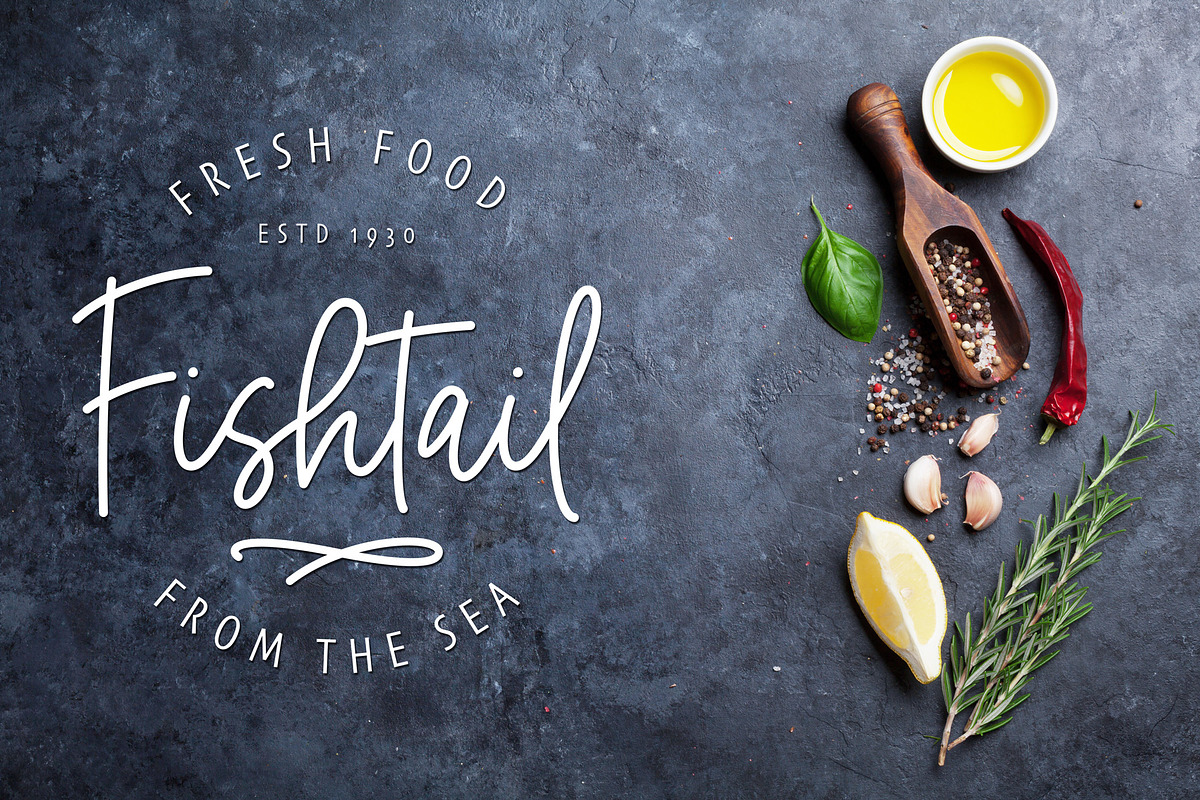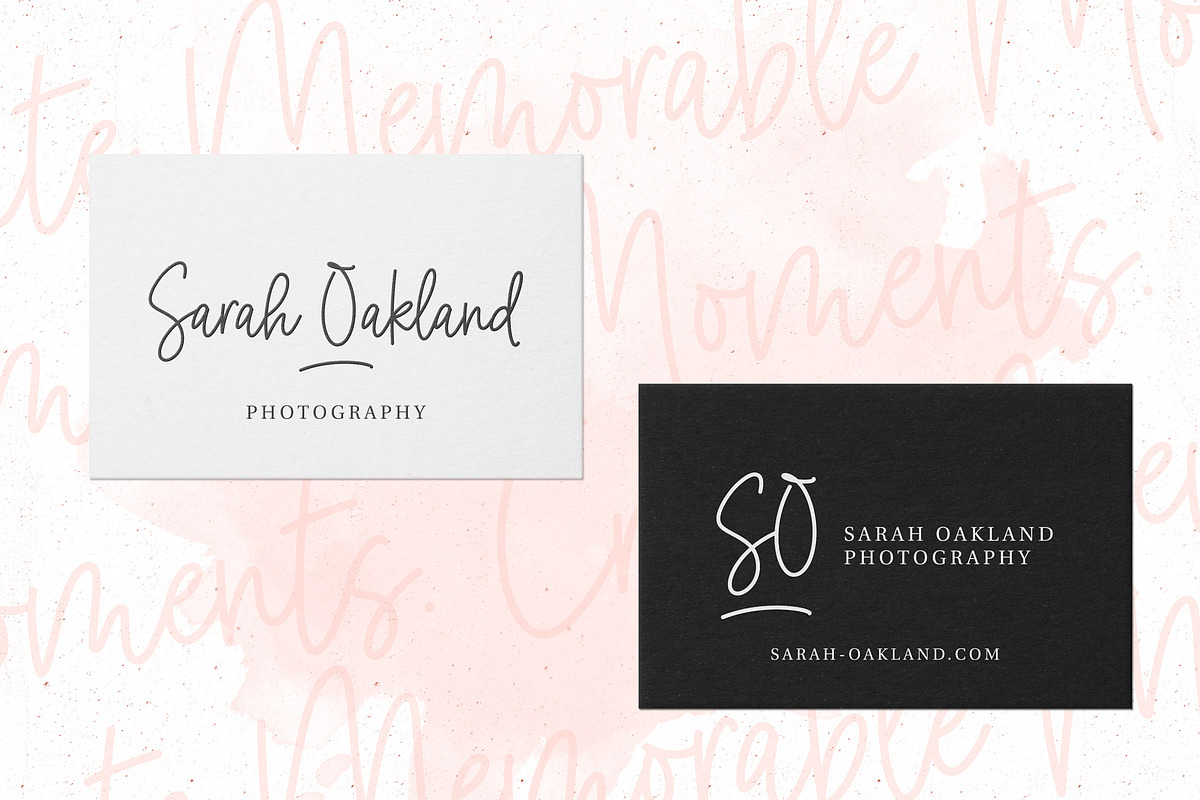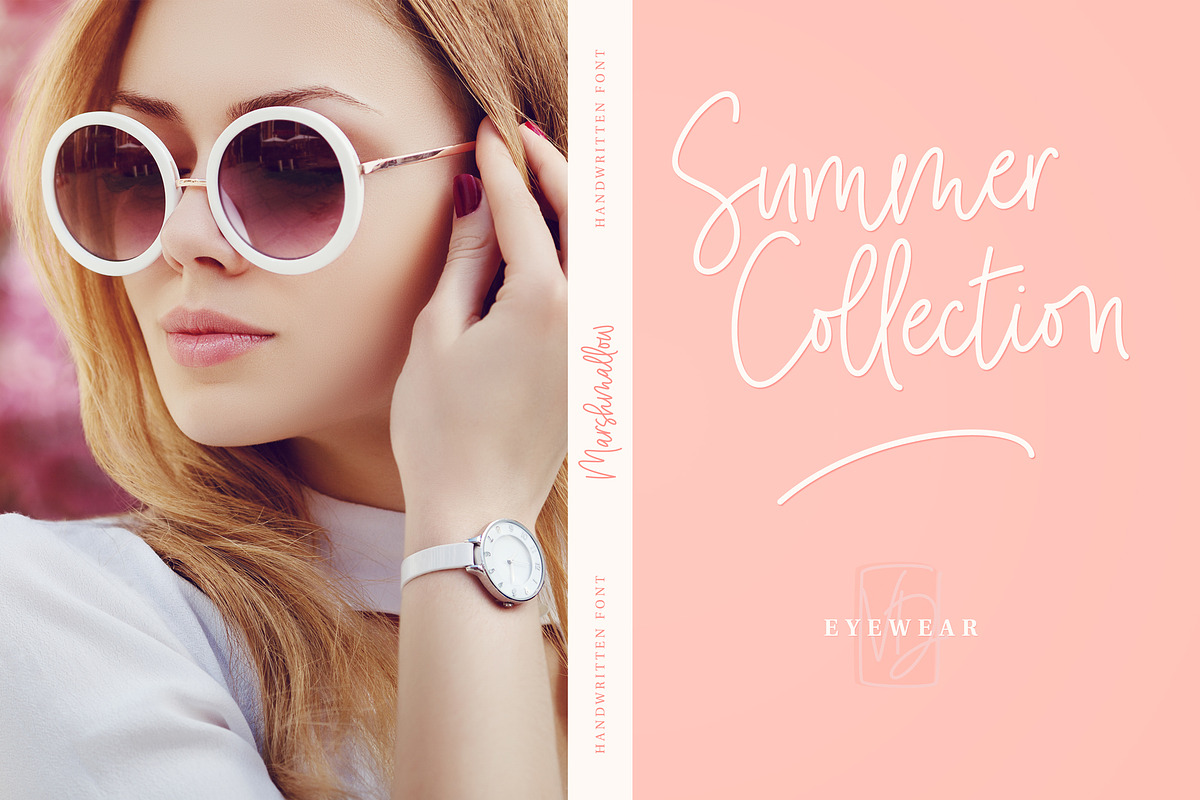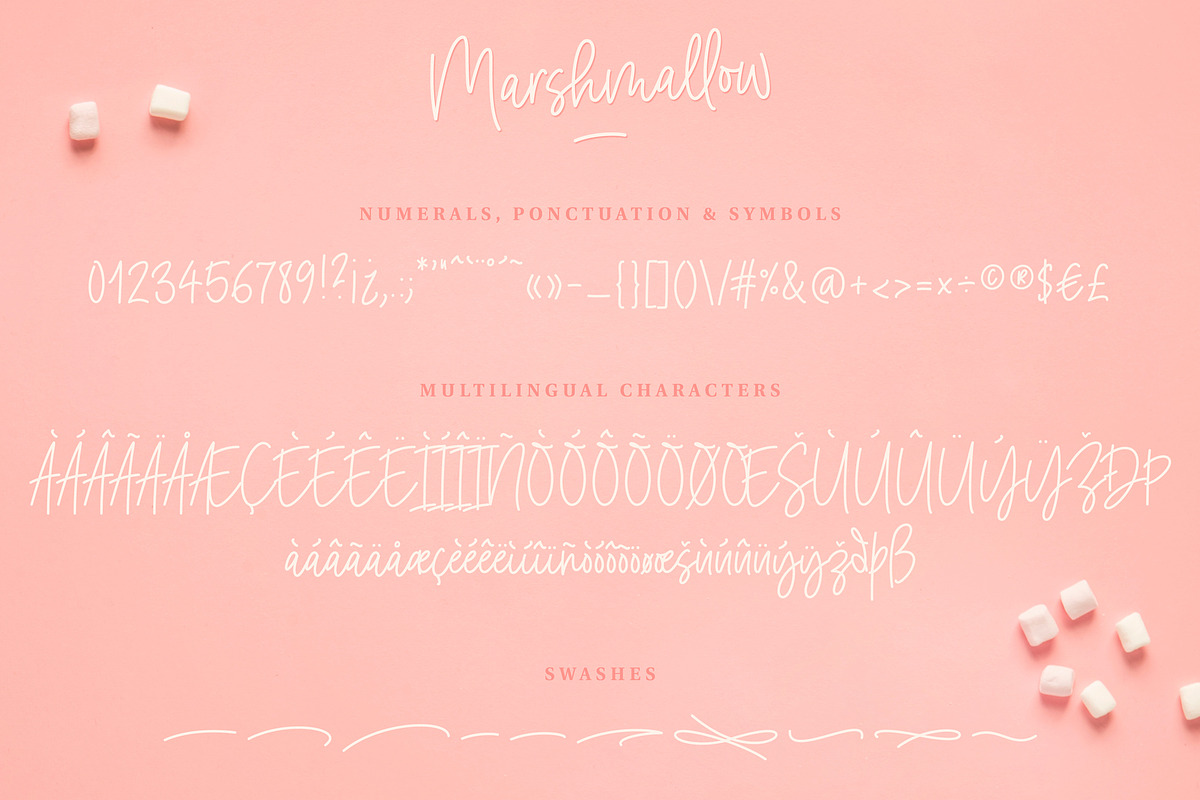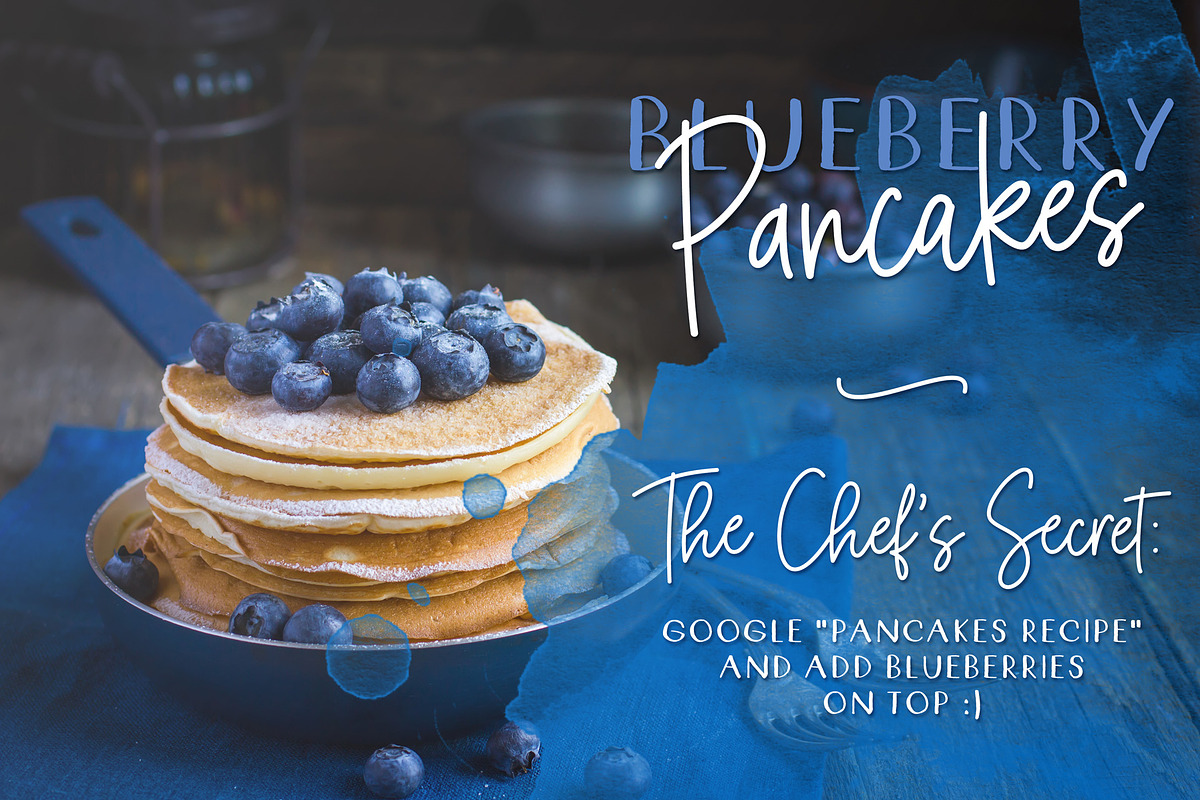
Marshmallow Handwritten Font
Introducing «Marshmallow» a cool and clean handwritten font featuring alternates, nice ligatures and swashes.
Derivate from a logo i made for a branding project Marshmallow has been created with the thought of giving a fresh, readable signature style font.
You can use it for various projects such as branding design, blog headers, signatures, quotes, fashion apparel, business card, stationery and more...
- Some bonus swashes included as a separated font allow you to add a nice finishing touch to your text.